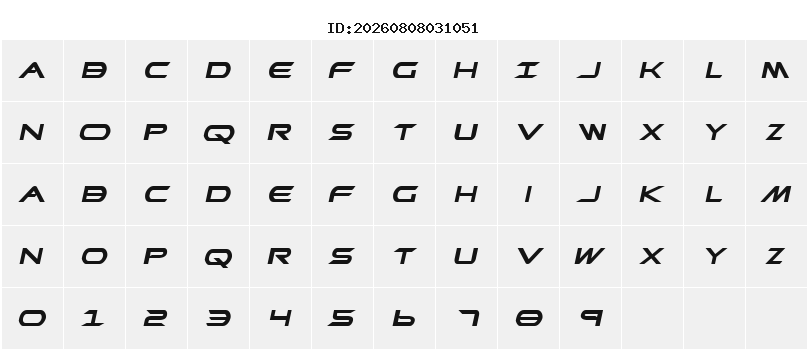
Promethean Bold ExpItalic Preview
• Font Name: Promethean Bold ExpItalic
• Font Style: Bold ExpItalic
• Full Font Name: Promethean Bold ExpItalic
About Promethean Bold ExpItalic.ttf
Promethean Bold ExpItalic.ttf is a modern, elegant sans-serif font designed for ultimate readability and visual harmony. Perfect for branding, headlines, web design, and print materials.